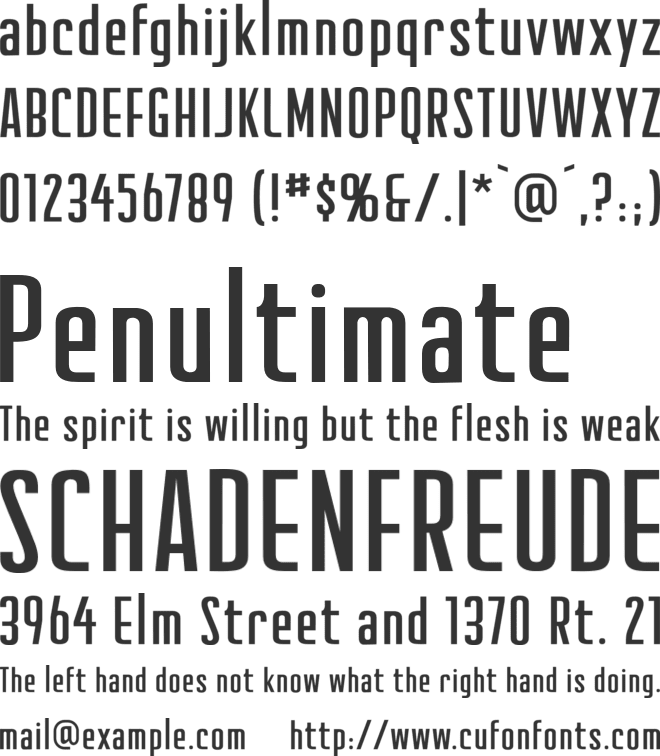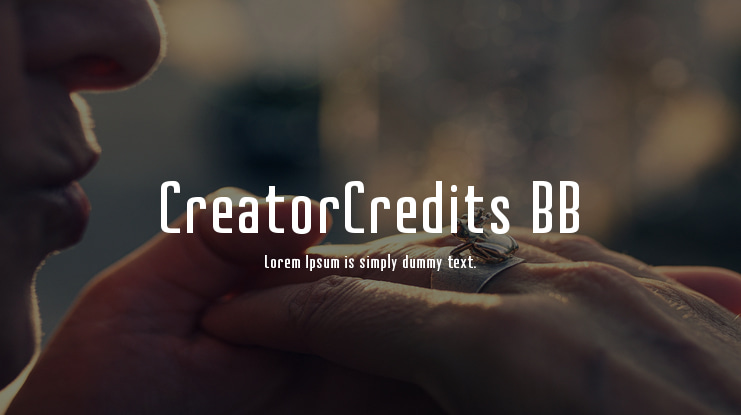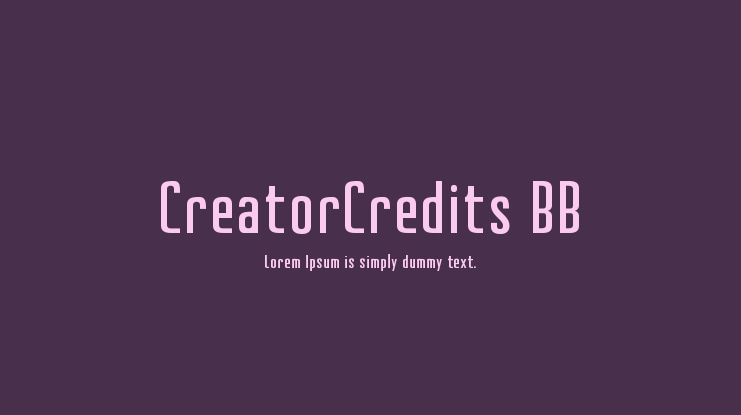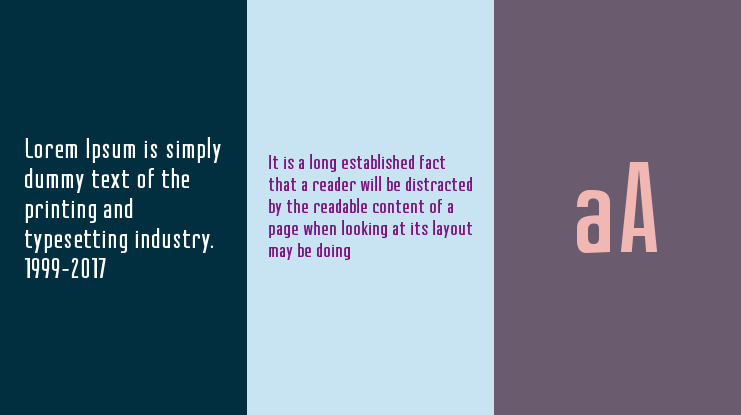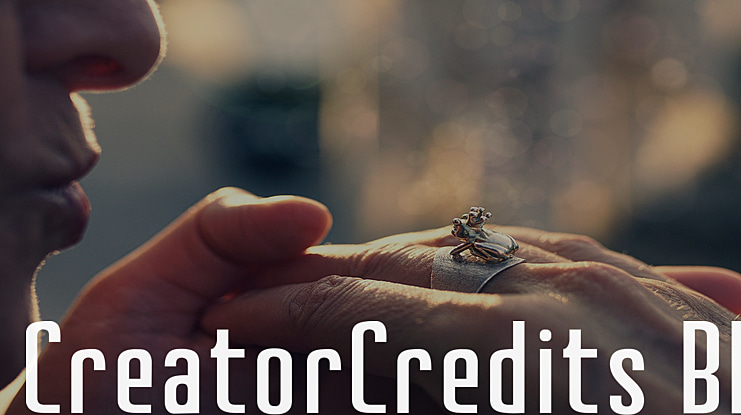
CreatorCredits BB Font Family
Thought I'd make this month a theme - condensed fonts! CREATOR CREDITS BB is a simple, narrow sans-serif font designed to help you fit a whole bunch of creator credits in a reasonable space on your title pages. Very legible at small sizes. Comes with Regular and Italic.